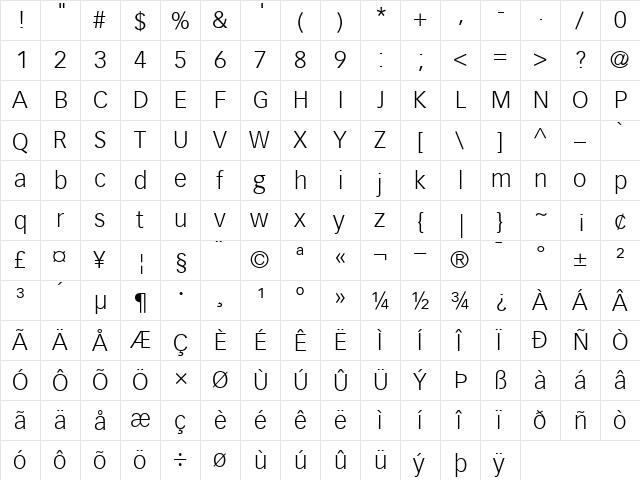
VectoraLH45-Light Light Font Preview
VectoraLH45-Light Light
Design Context for VectoraLH45-Light Typeface
VectoraLH45-Light offers clean, dependable letterforms without strong stylistic allegiance, making it a practical choice for designers who need flexibility. Its slender proportions lend an understated elegance to any composition.